Amazing Retro, Vintage, Modern & Grunge Fonts Mega Bundle contains 12 font families with 57 fonts!
12 premium font families with 57 fonts!
1. Gatsby – ArtDeco Font by Cruzine Design
ArtDeco vintage style display or seif font for your new projects. Great for modern but also for retro/vintage projects!
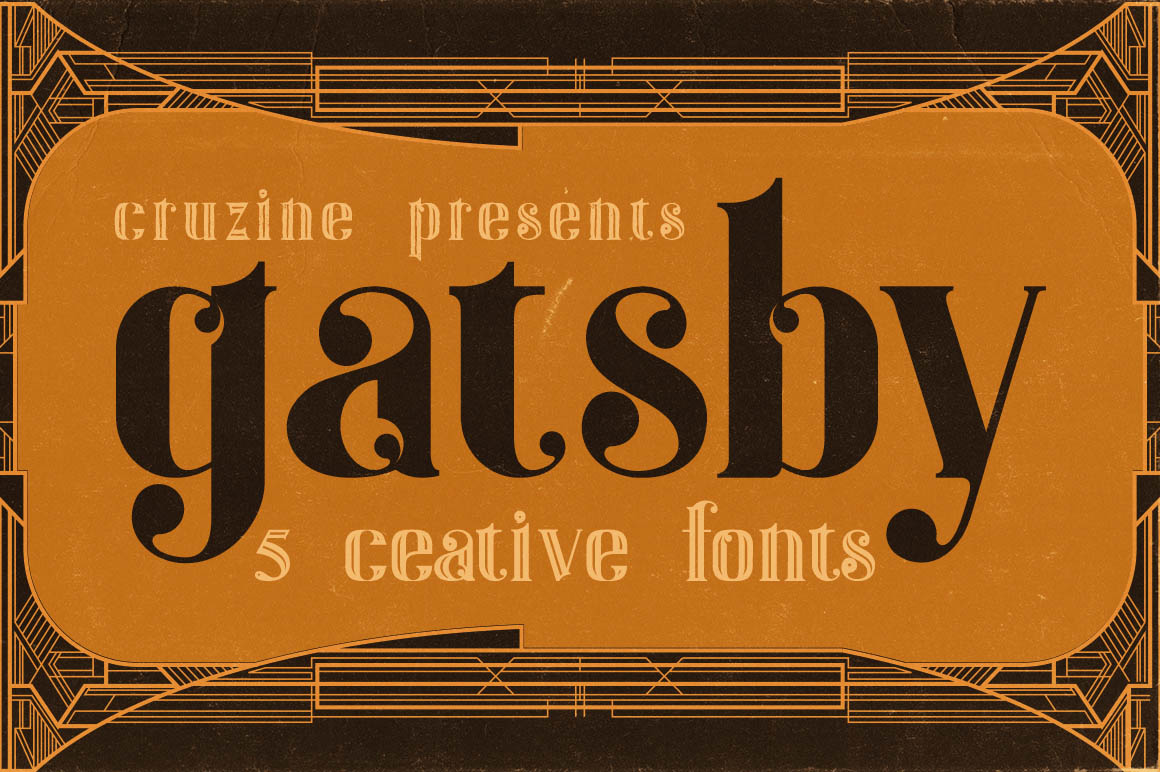
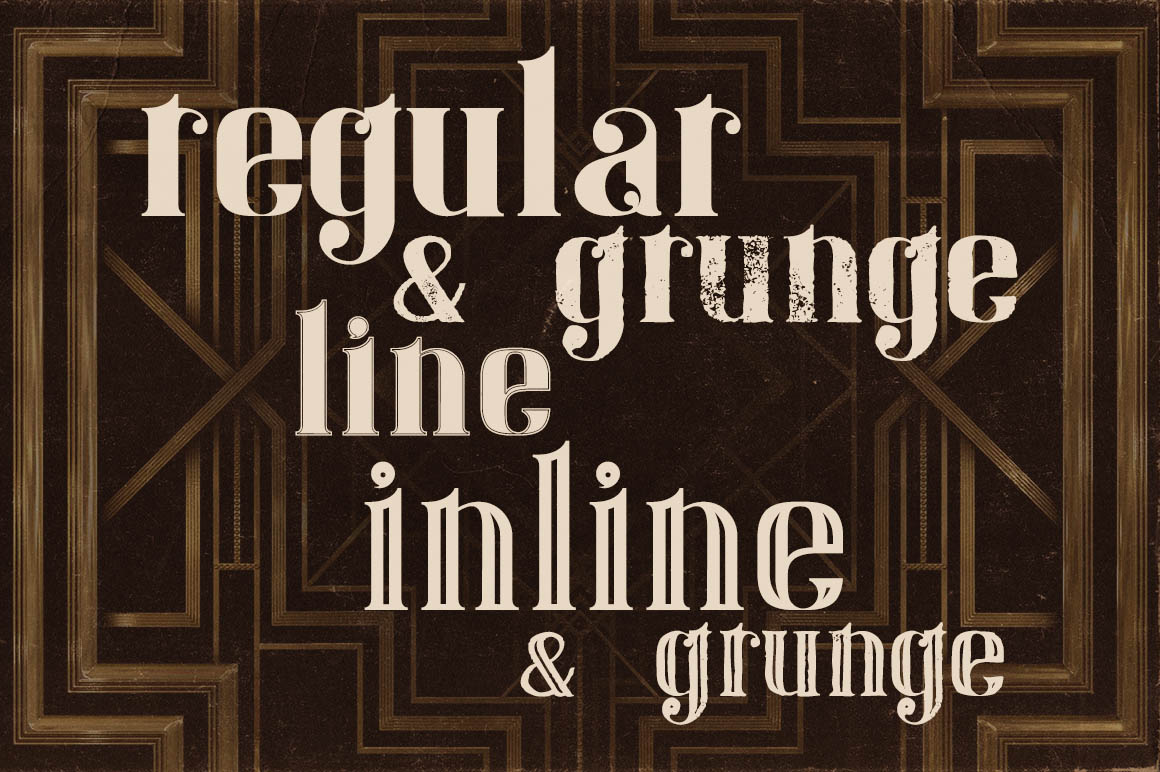
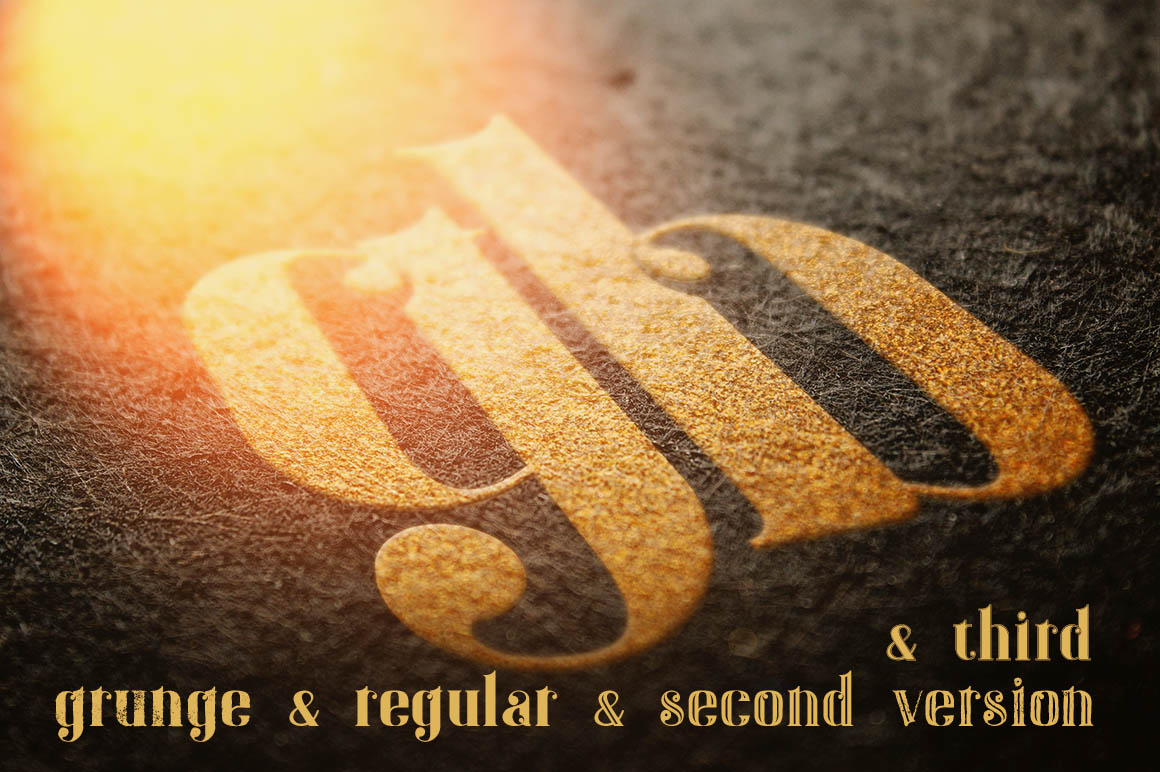
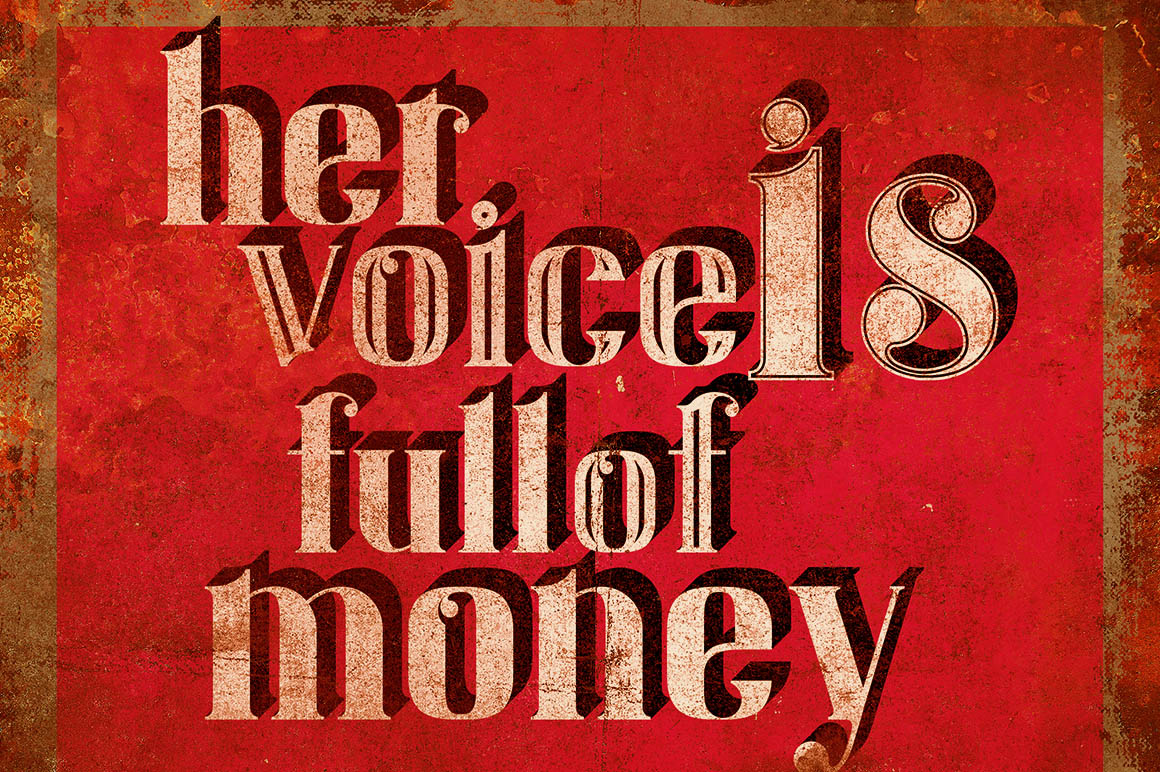
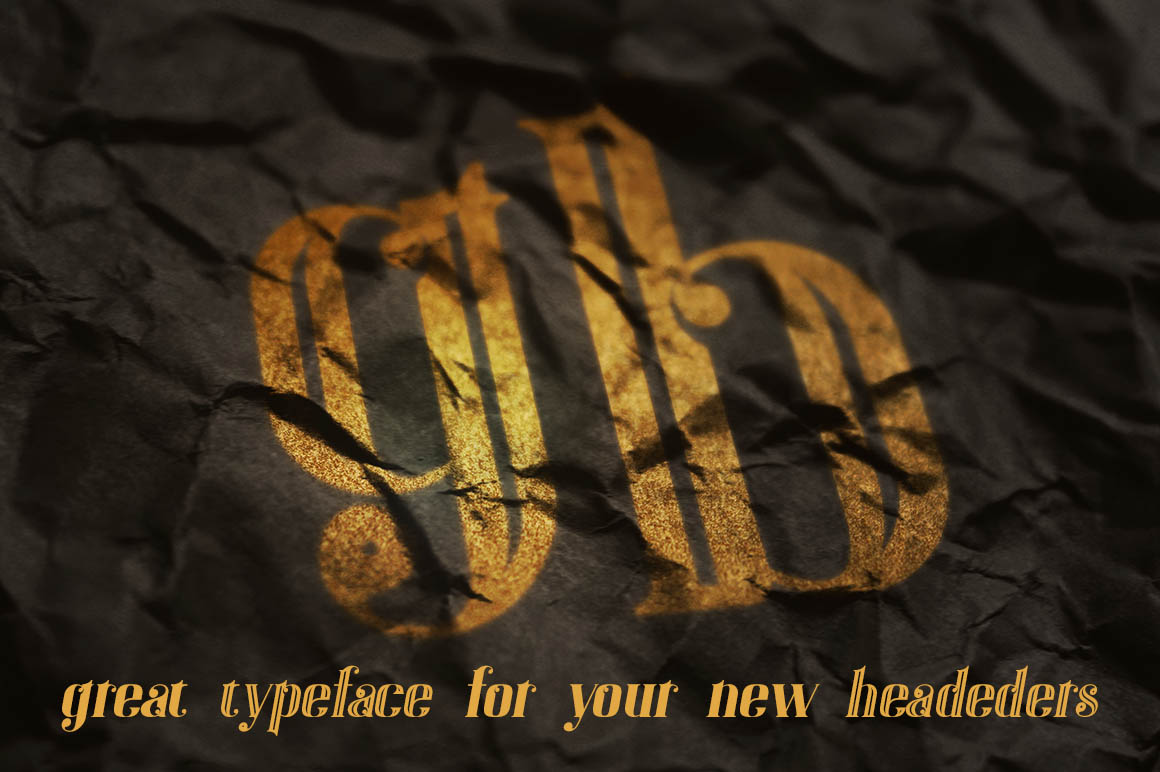
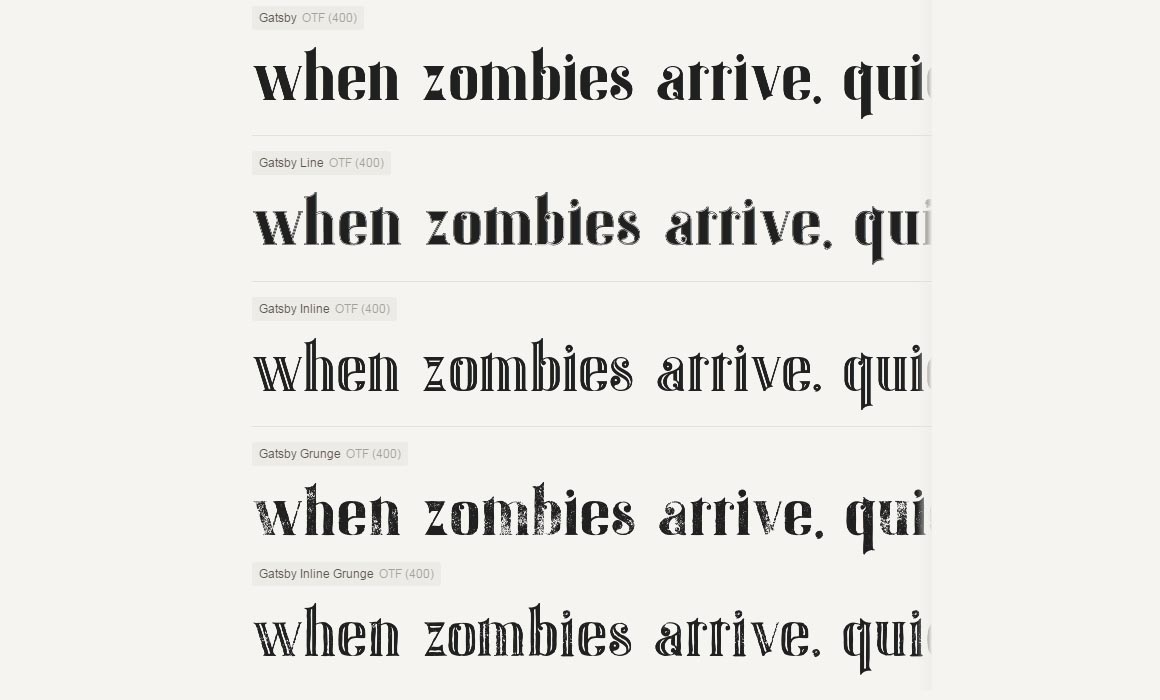
2. Demonius – 4 Vintage Fonts by Jumbo Design
Unique vintage style custom font with 4 styles: regular and grunge, line & line grunge
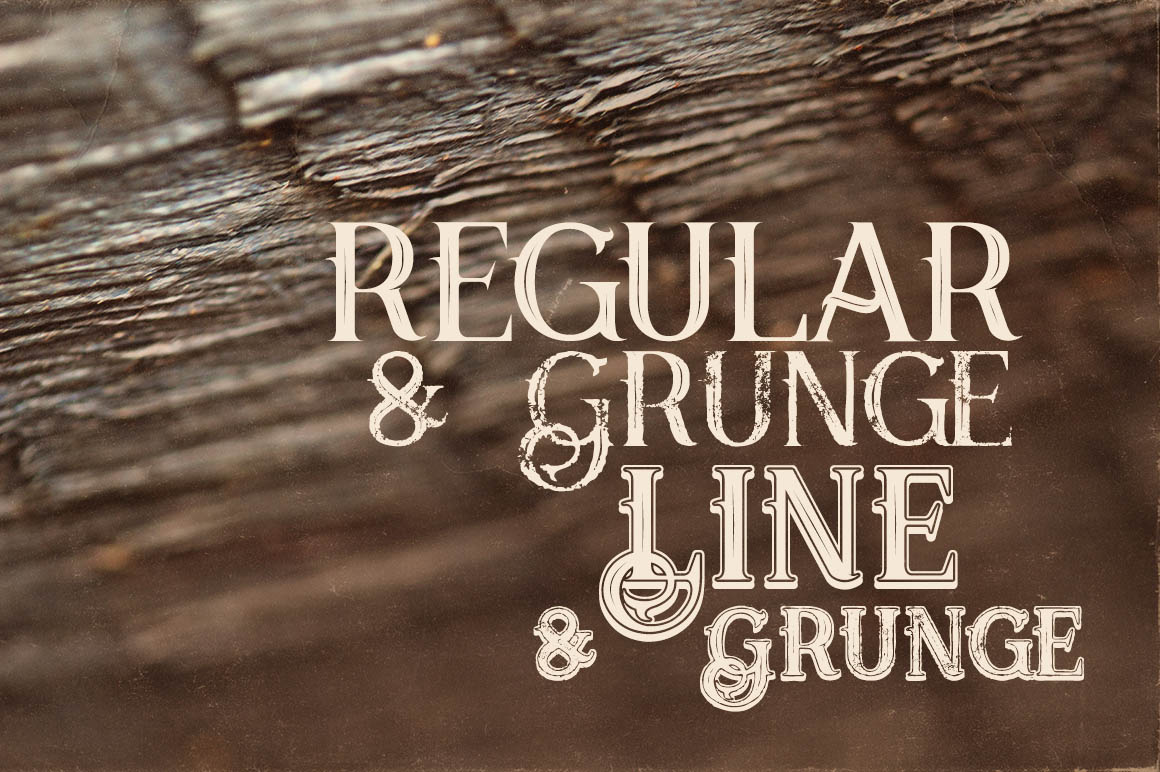
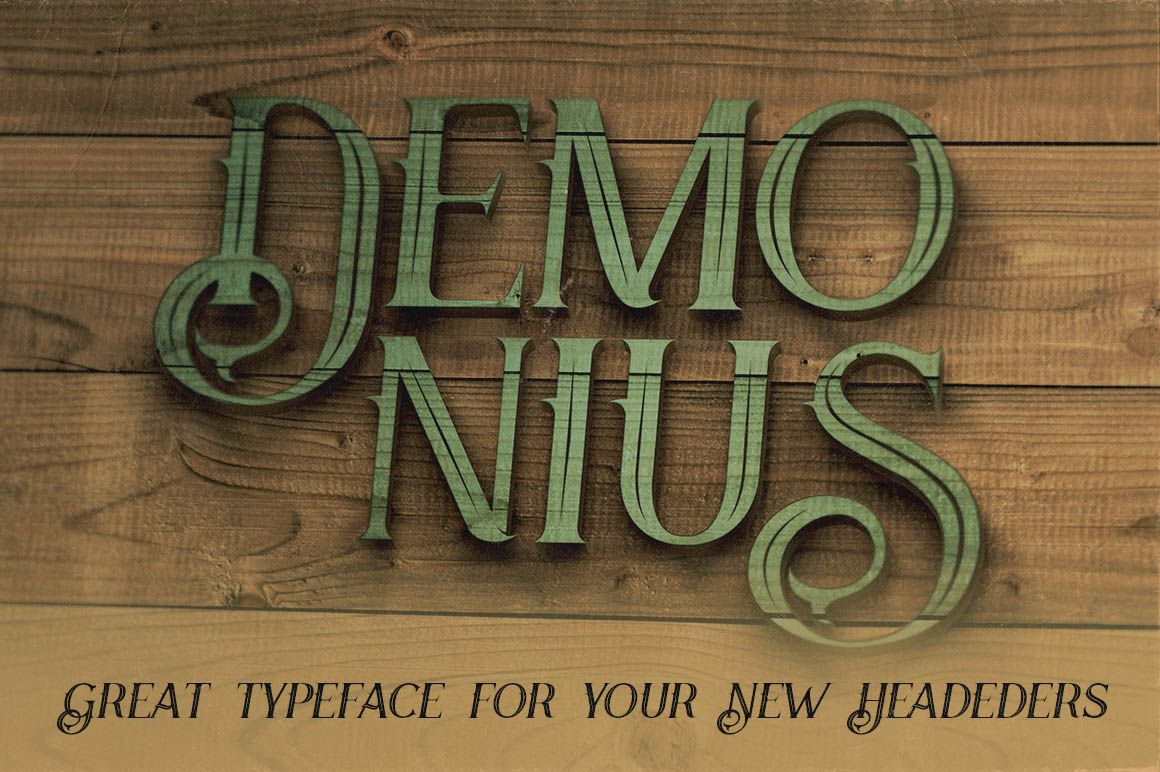
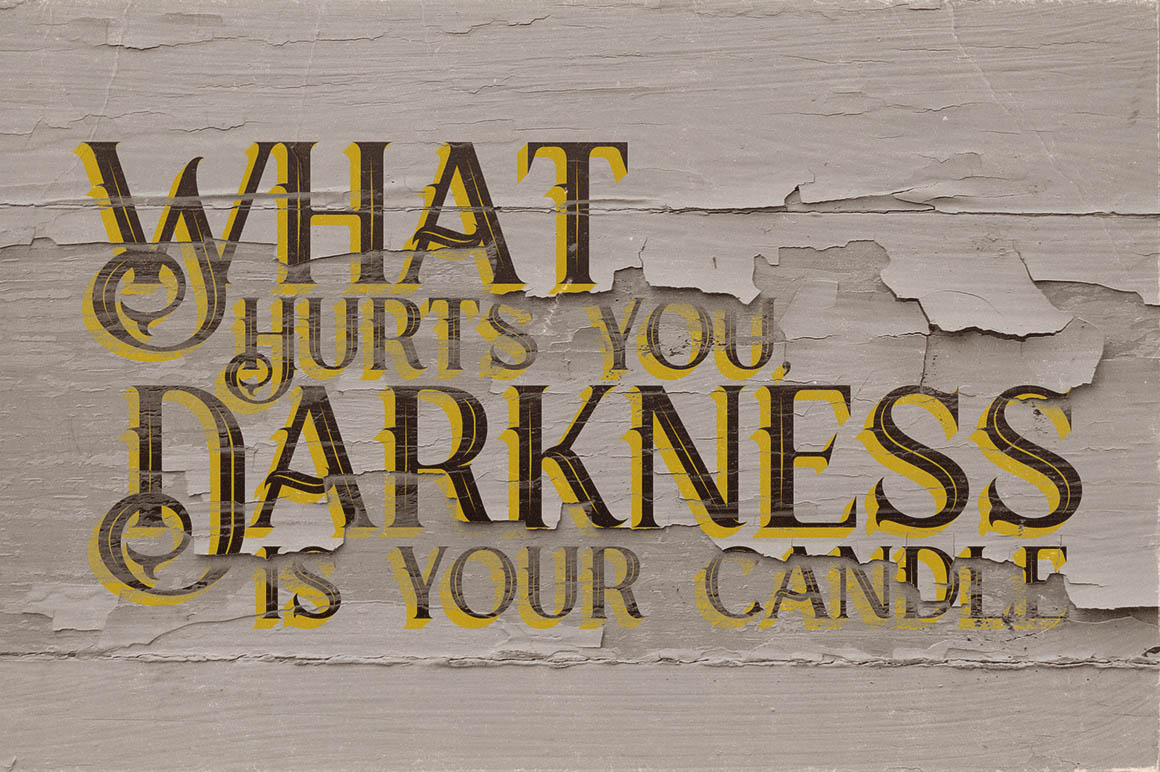
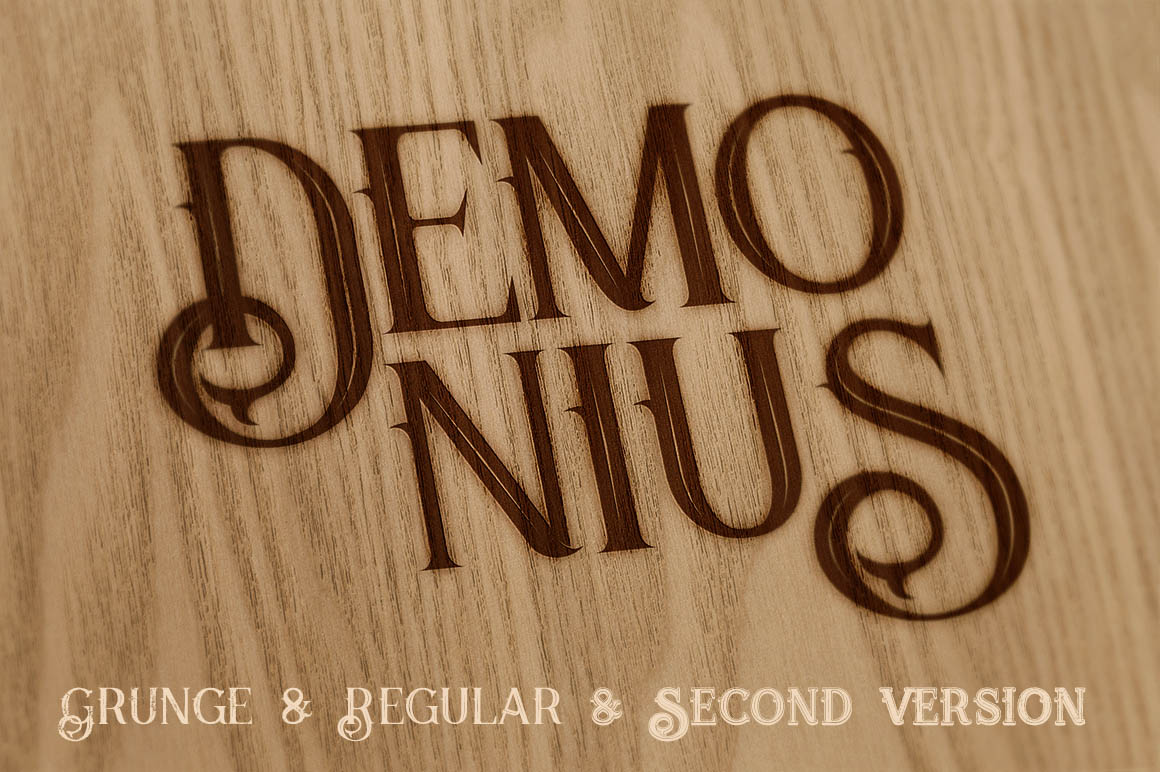
3. New York Font by Cruzine Design
Vintage style display serif font for your new projects. Great for your retro/vintage projects!
4. Holiday – Creative Script Font by Jumbo Design
Modern and also vintage style script font with 2 styles: regular and grunge
5. Zelda – ArtDeco Font by Cruzine Design
ArtDeco vintage style display font for your new projects. Great for modern but also for retro/vintage projects!
6. Shelby Typeface by Jumbo Design
Modern and also vintage style custom font with 4 styles: regular and grunge, inline and inline grunge
7. Bureno – Decorative Font by Cruzine Design
Vintage & ornamental style display font for your new projects. Great for your retro/vintage headers or identity!
8. Safi – Unique Calligraphy by Jumbo Design
Unique and creative calligraphy script font with 4 styles: regular & gurnge, bold & bold gurnge
9. Timor – Vintage Style Font by Jumbo Design
Unique vintage or fantasy style custom font with 4 styles: regular and grunge, inline and inline grunge
10. Phoenix Typeface by Jumbo Design
Unique vintage or fantasy style custom font with 6 styles: regular and grunge, inline & inline grunge, bold & bold grunge
11. Minoru Font by MIIM Design
Creative font for your new projects. Great for modern or vintage style projects!
12. Montana Font by MIIM Design
Unique font for your new projects. Great for modern or futuristic projects!